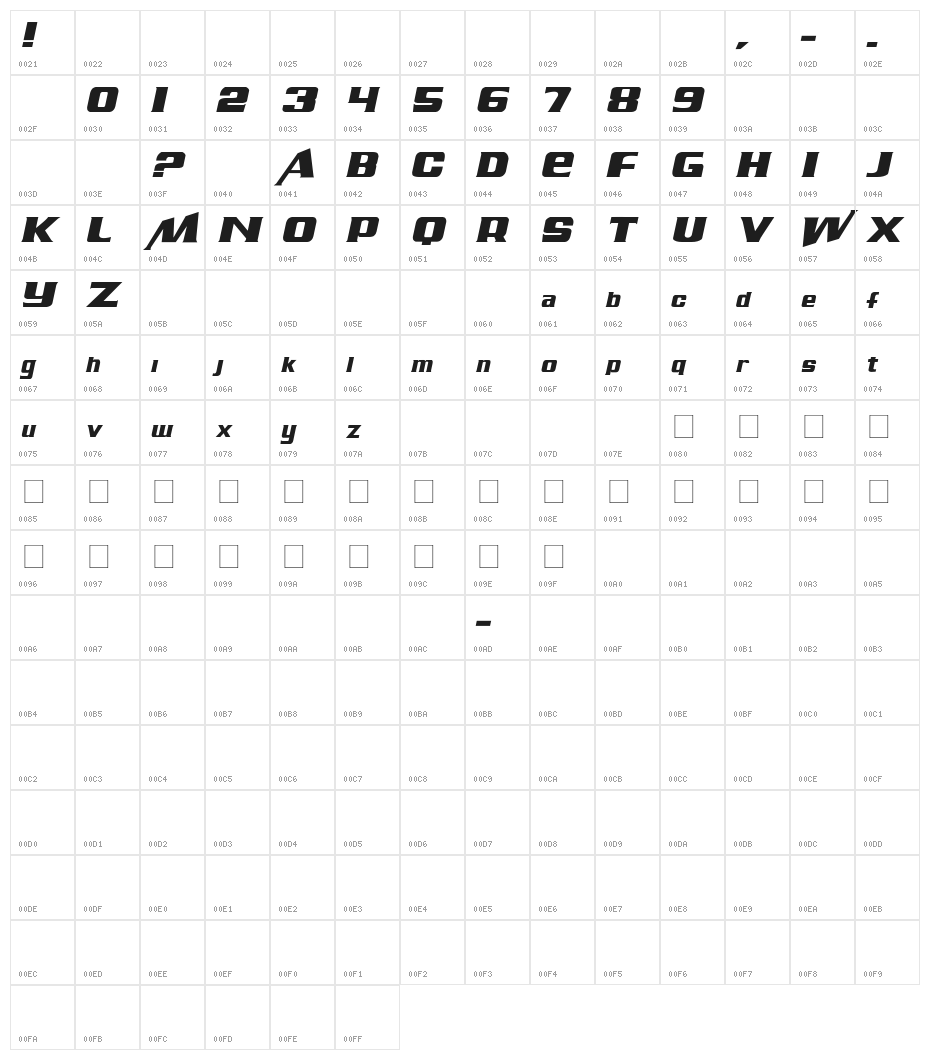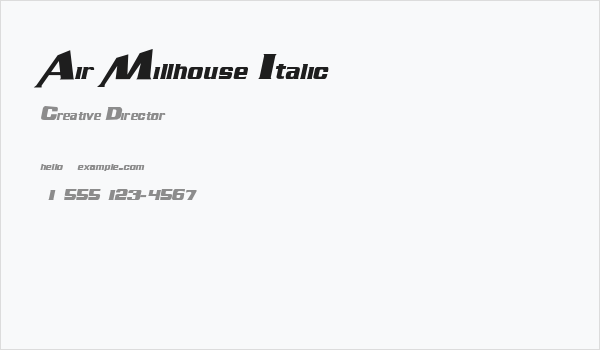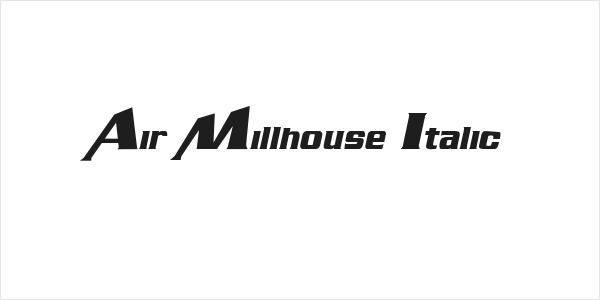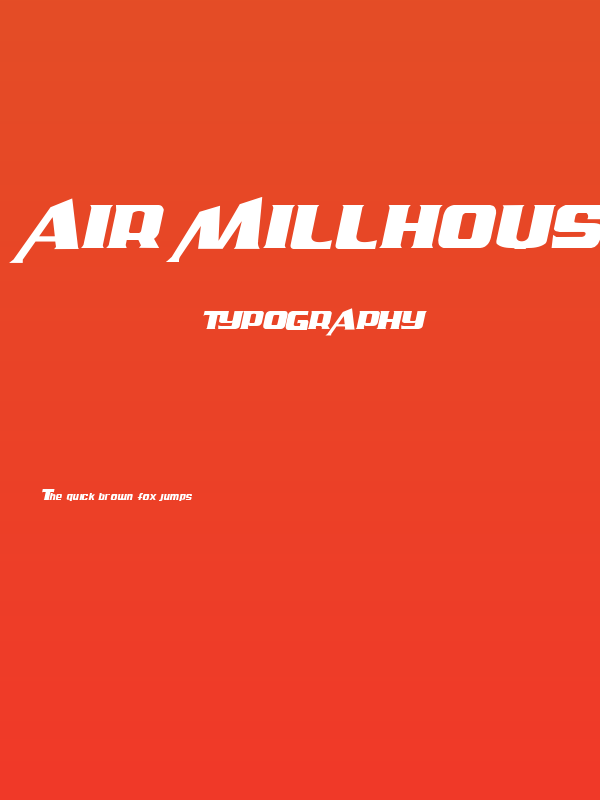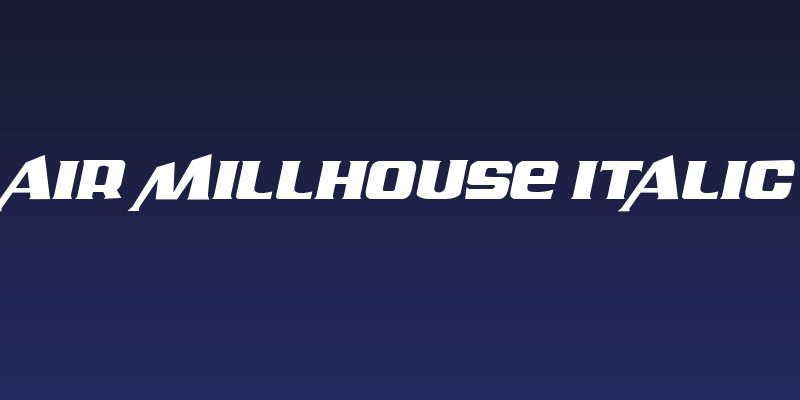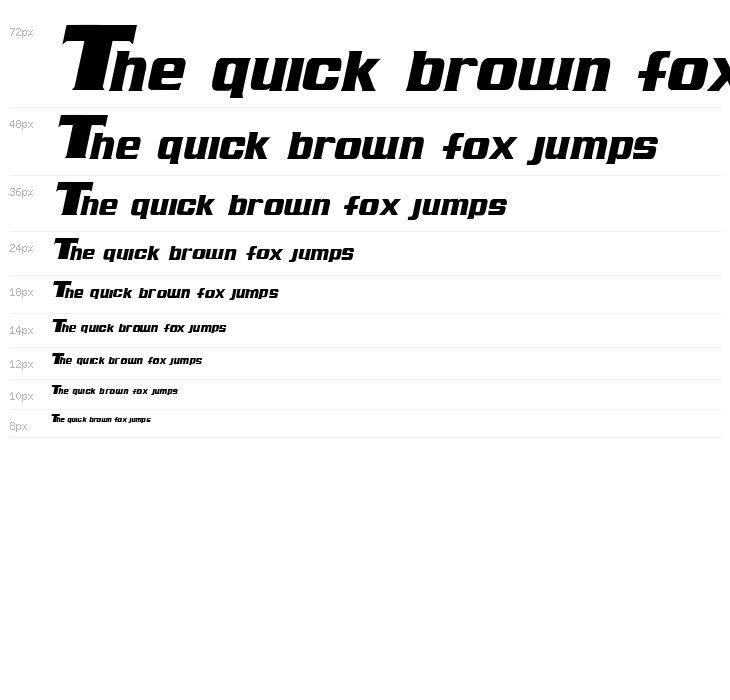
Air Millhouse Italic Font
This font features a dynamic and modern italic style with a strong, bold presence. The characters are slightly slanted, giving a sense of motion and energy. The strokes are thick and consistent, providing a robust and impactful appearance. The design incorporates sharp angles and clean lines, making it suitable for attention-grabbing headlines and titles. The overall aesthetic is sleek and contemporary, ideal for projects that require a bold statement.
Proposed ProjectsIdeal for sports branding, dynamic posters, modern advertising, and bold headlines.